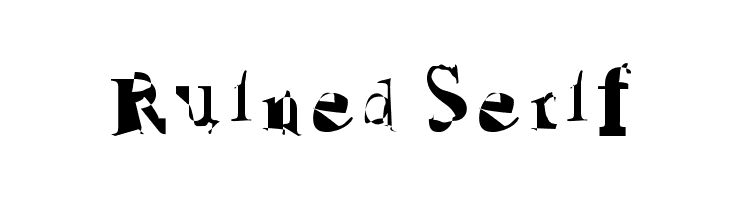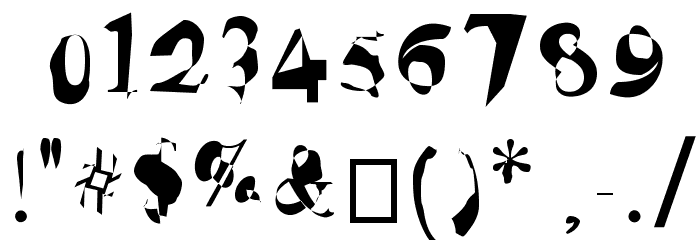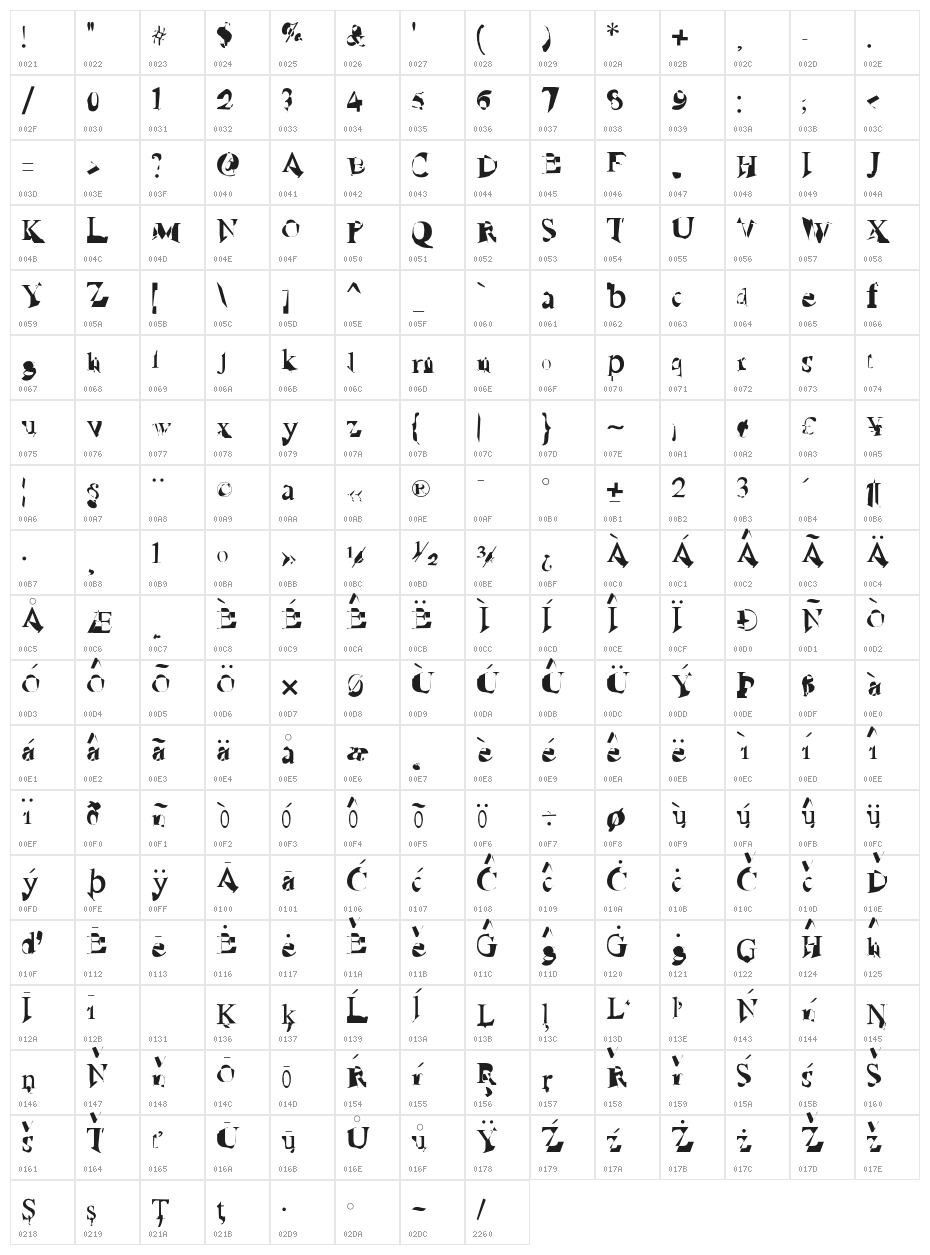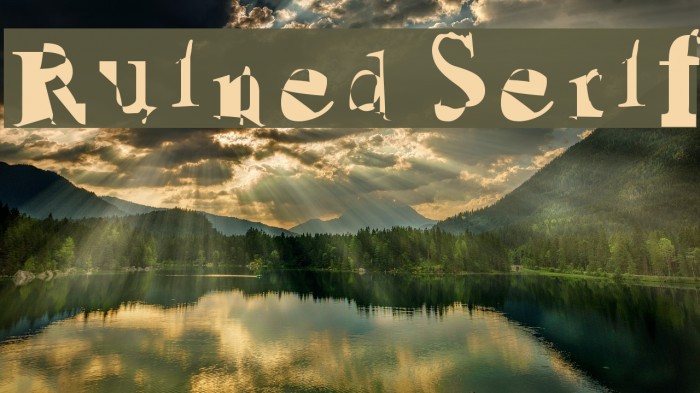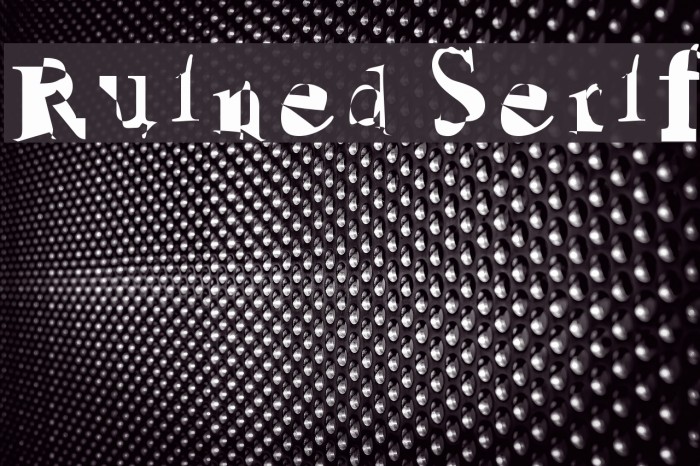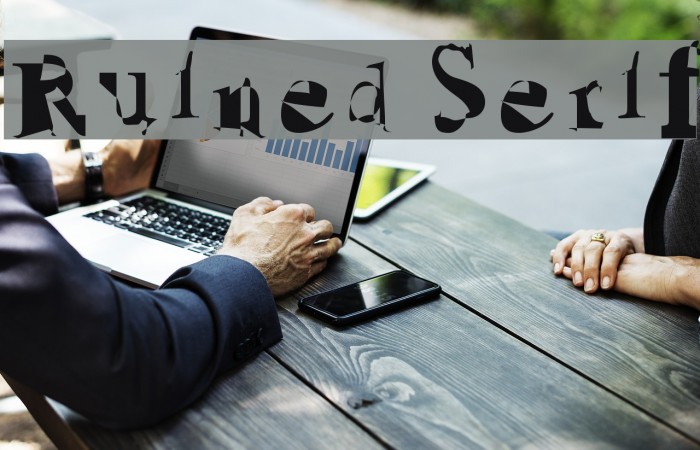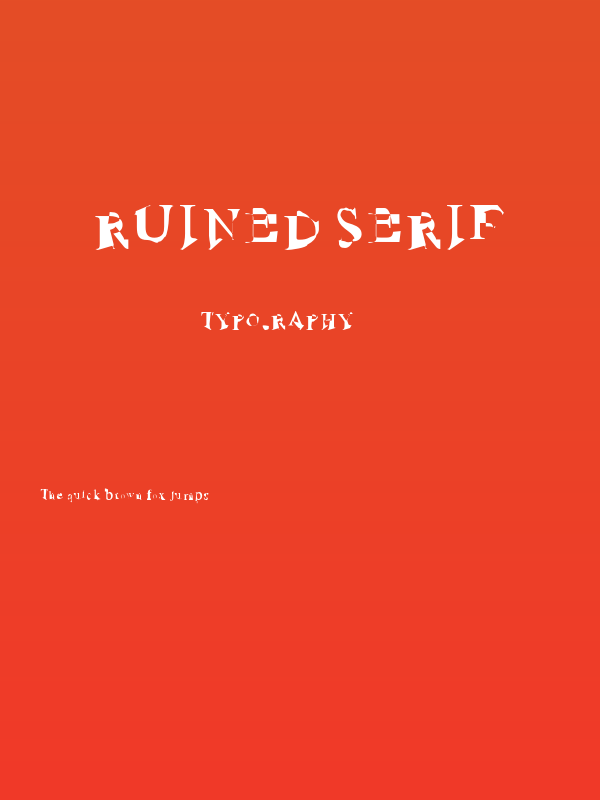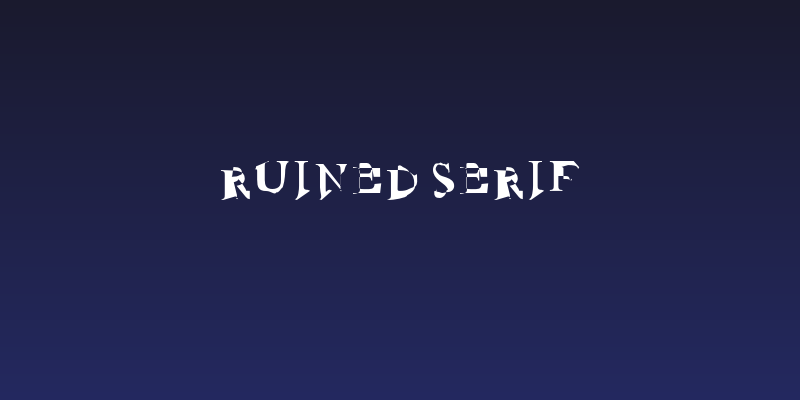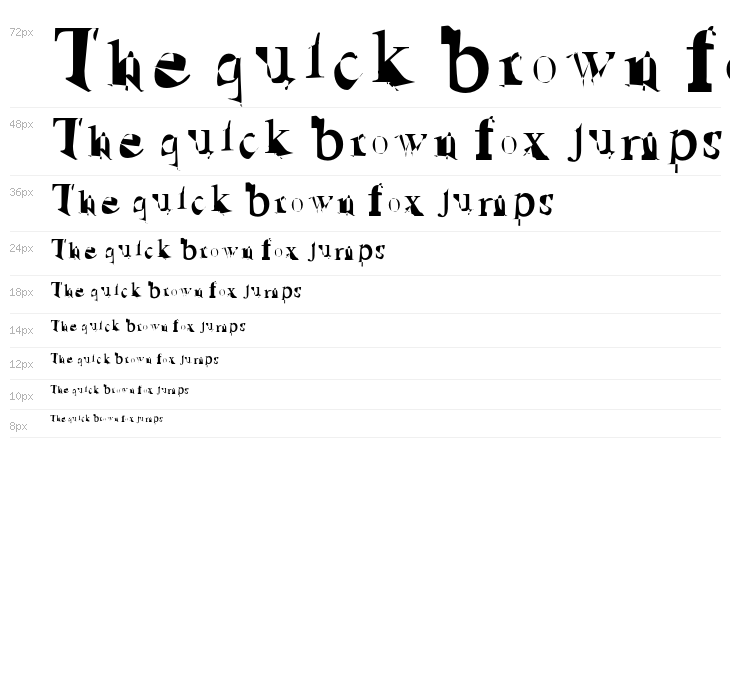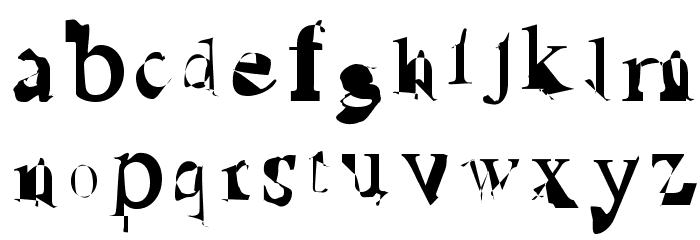
Ruined Serif Font
Ruined Serif Description
This font exhibits a unique, distressed aesthetic with a serif style that appears intentionally fragmented or eroded. Each character maintains a classic serif structure but is artistically 'ruined,' giving it a weathered and aged appearance. The uppercase and lowercase letters, as well as numbers and special characters, share this distinctive look, making it ideal for projects that require a vintage or grunge feel. The irregularities in the design add a dynamic and edgy quality, perfect for creative and unconventional applications.
Overall StyleVintage, Grunge
Use CaseHeadlines, Artistic designs, Branding
Proposed ProjectsIdeal for vintage posters, album covers, edgy branding, and artistic projects requiring a grunge aesthetic.